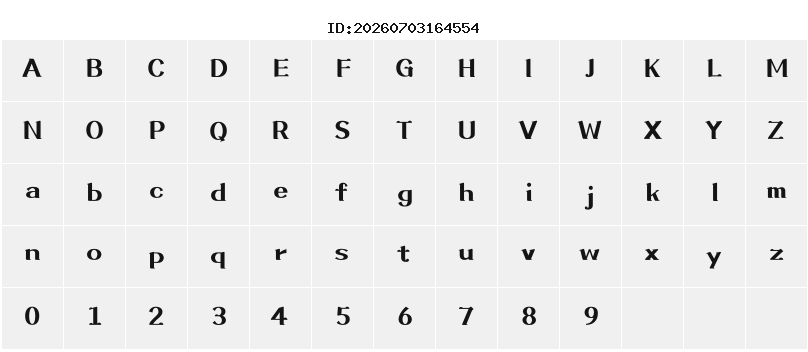
404-上首华宋体 Preview
• Font Name: 404-上首华宋体
• Font ID: 404-SSHuaSongTi:Version 4.00
• Full Font Name: 404-上首华宋体
• Version: Version 4.00 April 22, 2026
• PostScript Name: 404-SSHuaSongTi
• Character Count: 7602
• Manufacturer: 上首造字
About 404-上首华宋体.ttf
404-上首华宋体.ttf is a modern, elegant sans-serif font designed for ultimate readability and visual harmony. Perfect for branding, headlines, web design, and print materials.